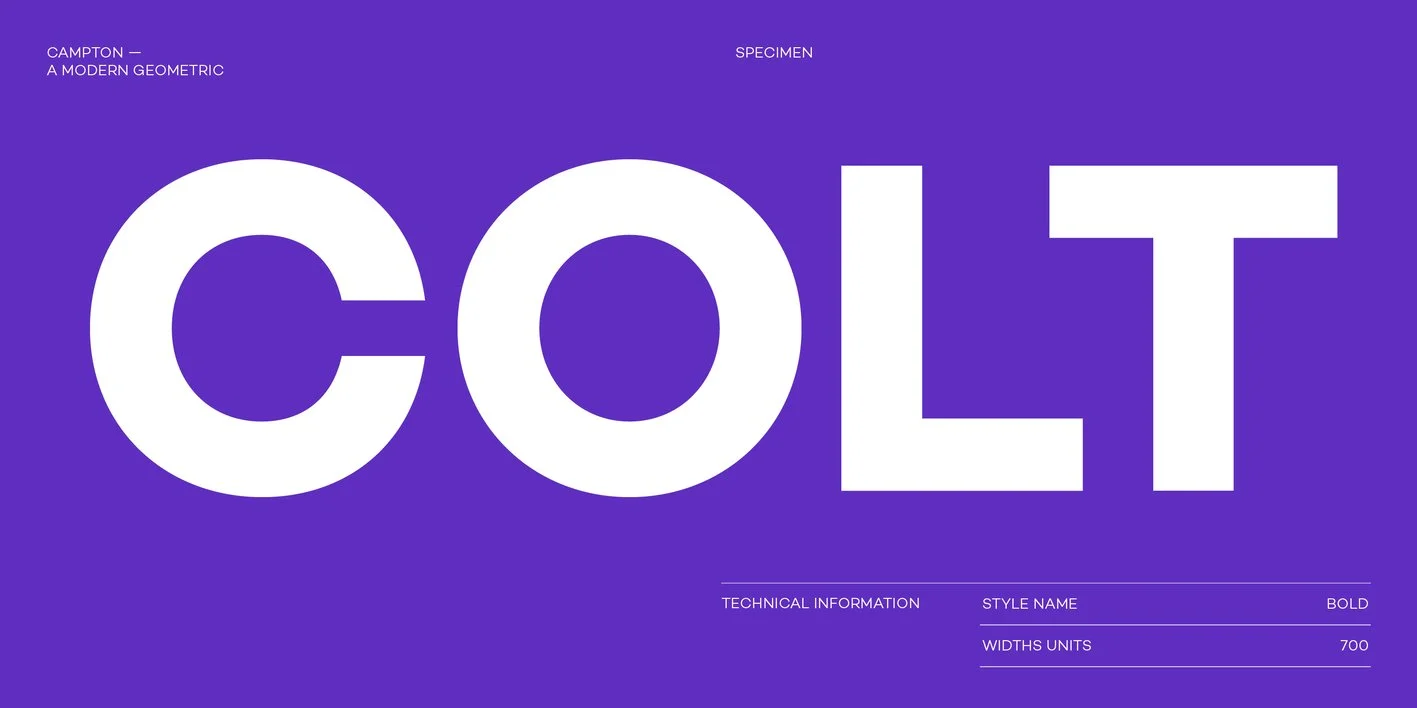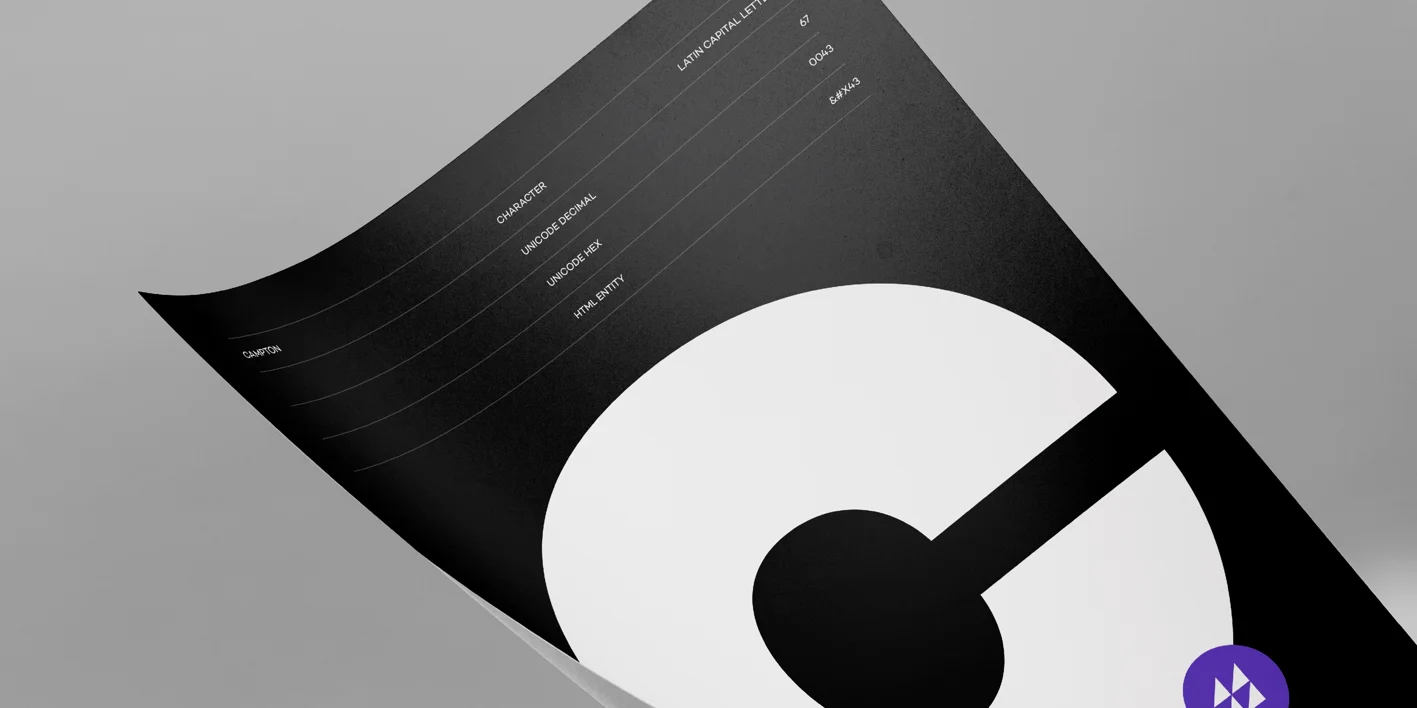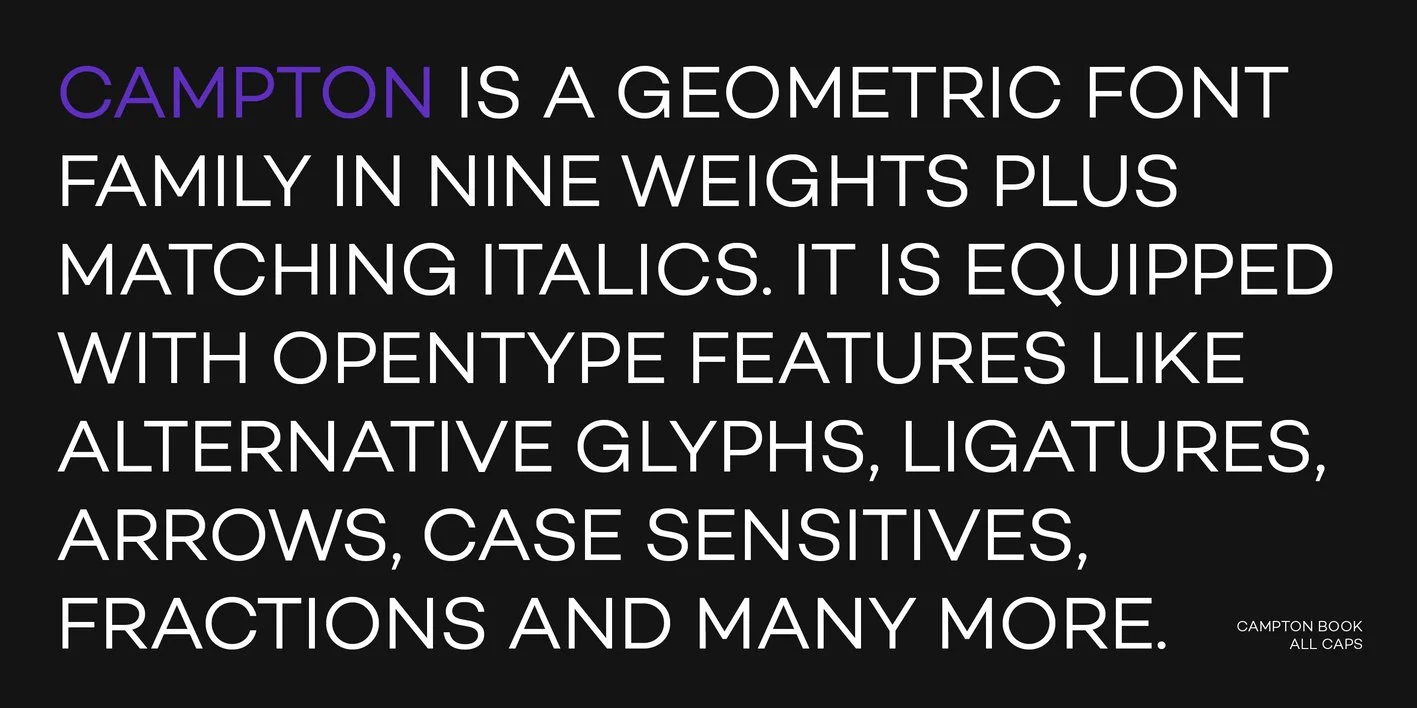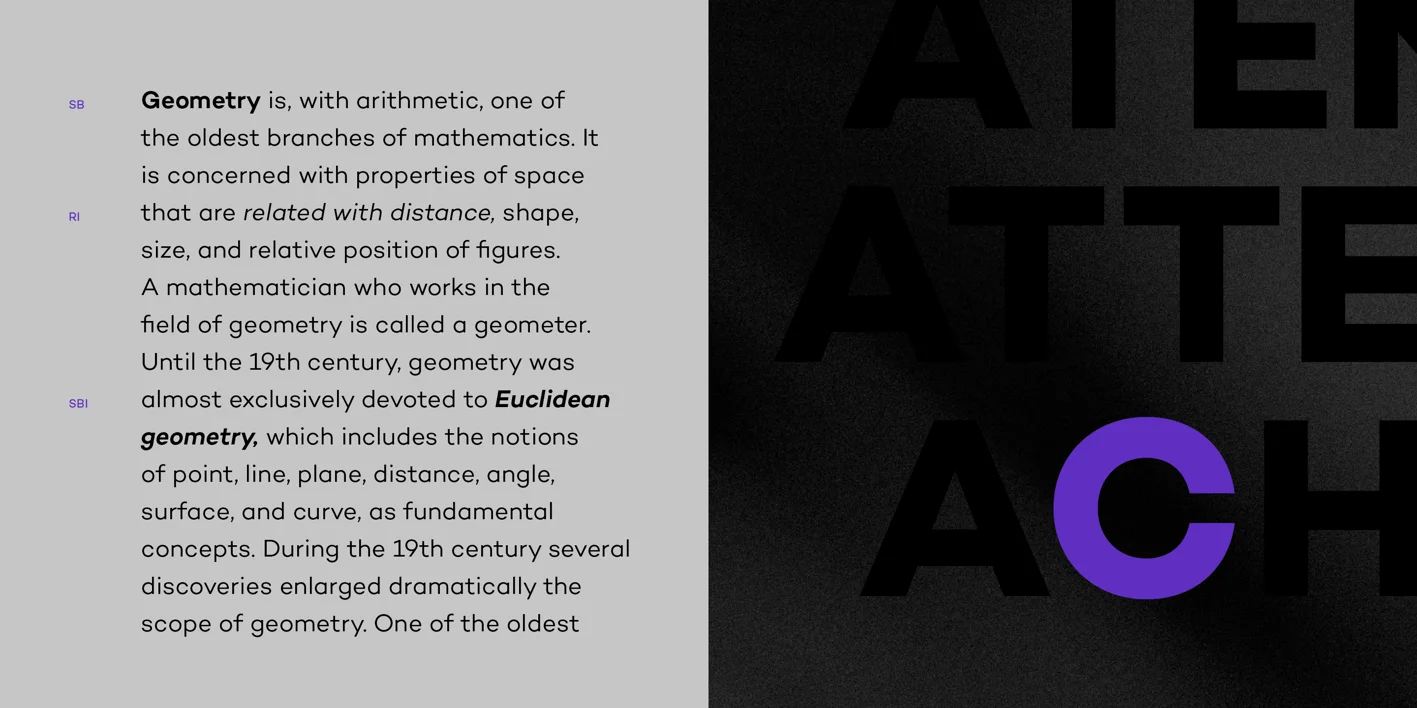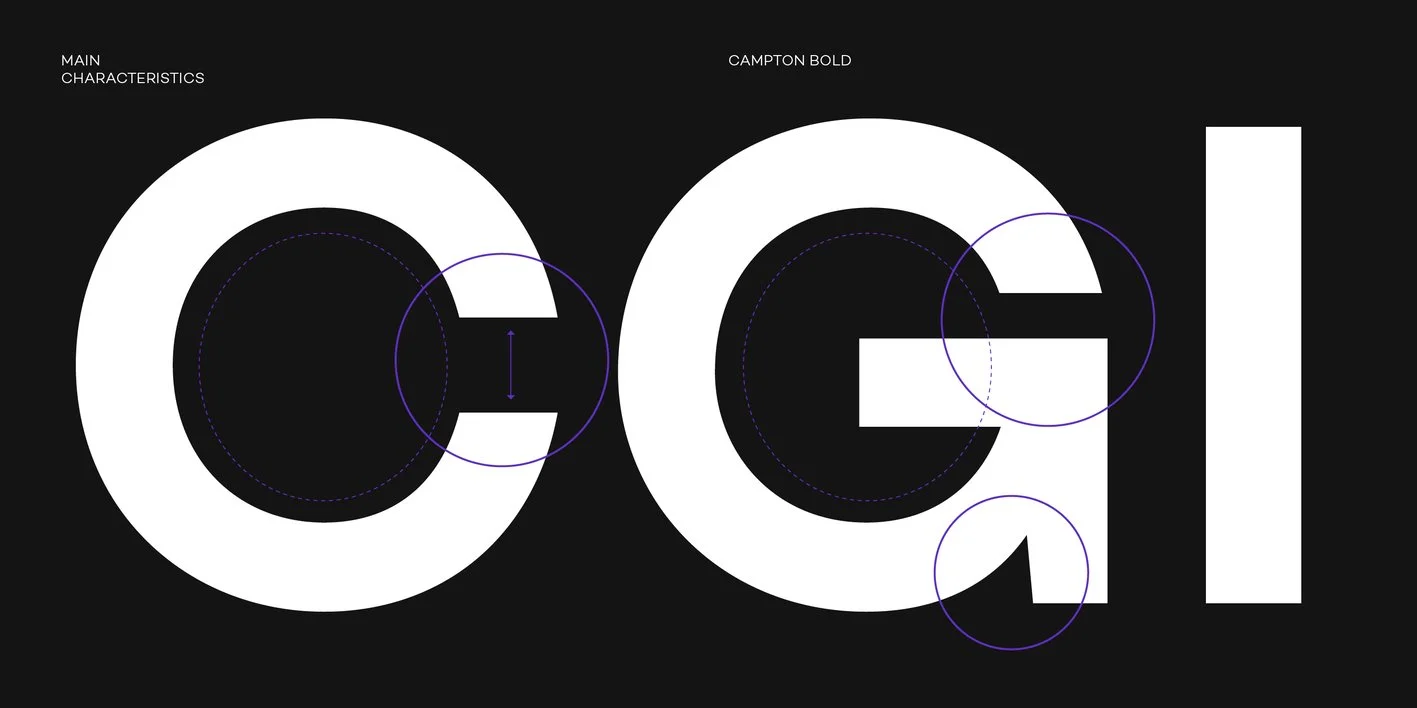
Campton Font
Few typefaces manage to balance strong typographic hierarchy support with genuine day-to-day practicality. Campton is one of them. The typeface brings a versatile sensibility to a broad range of creative disciplines, with distinctive character without sacrificing readability that holds up whether the work is print-first or screen-first.
In practice, Campton proves particularly effective for editorial layouts, logo design, brand identity systems, social media graphics, environmental graphics. Designers reaching for it find that the type decisions feel resolved rather than laboured — a useful quality when client timelines are tight.
The proportions balance x-height, cap height, and ascender length to produce a face that reads confidently at body copy sizes without losing presence at display scale. Sidebearings were derived from visual rhythm testing rather than mathematical calculation alone.
The range of applications extends to product labels, advertising campaigns, annual reports, poster creation. That breadth is deliberate: the proportions and spacing were stress-tested across a wide range of mock briefs before the typeface was finalised.
At smaller sizes the design retains its character without becoming cluttered. This resilience across scales makes Campton equally suitable for a business card and a billboard — a useful property when assets must scale across a campaign.
Motion designers building title sequences and lower thirds find Campton a reliable choice for projects that demand both personality and restraint. The design avoids the self-conscious quirkiness that dates quickly, settling instead for considered distinctiveness that holds up over time.